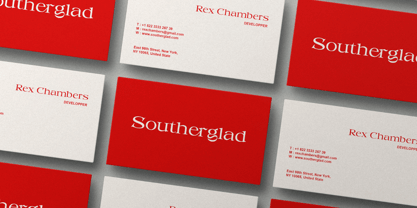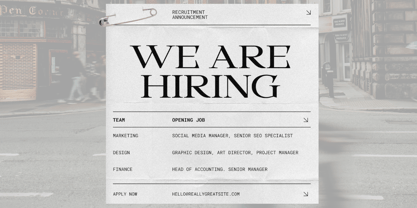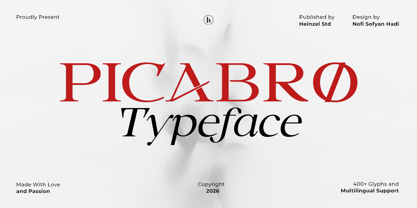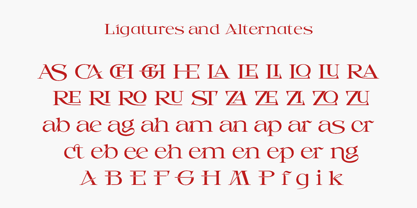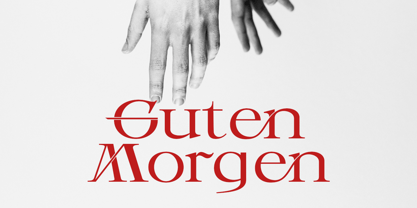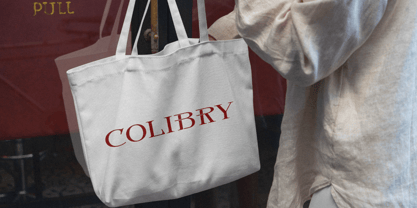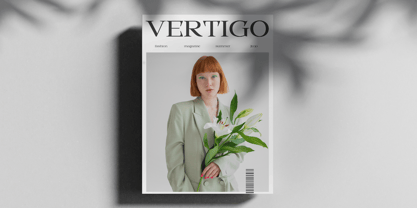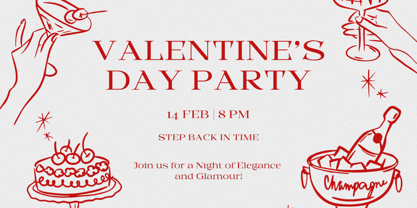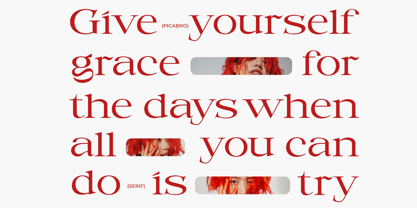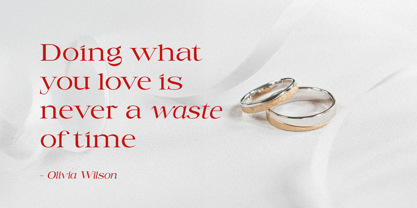
Picabro
by Heinzel Std
The Picabro Font Family was designed by Nofi Sofyan Hadi and published by Heinzel Std. Picabro contains 2 styles and family package options. More about this family
Picabro Serif is a refined and contemporary serif typeface that blends timeless elegance with modern sophistication. Designed with high-contrast strokes, sharp serifs, and distinctive letterforms, Picabro delivers a luxurious and editorial feel. Its unique character details—such as the stylish diagonal accents and expressive curves—add personality while maintaining clarity and readability. Perfect for branding, fashion editorials, luxury packaging, logos, headlines, magazines, invitations, and high-end marketing materials, Picabro Serif creates a bold visual impact without losing its classic charm. With 400+ glyphs and multilingual support, this typeface ensures versatility across global design projects.
Designers: Nofi Sofyan Hadi
Current Foundry: Heinzel Std